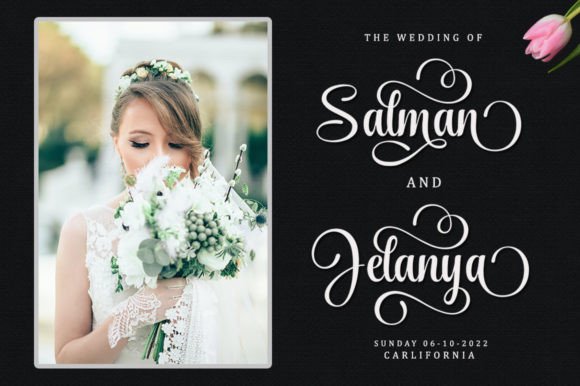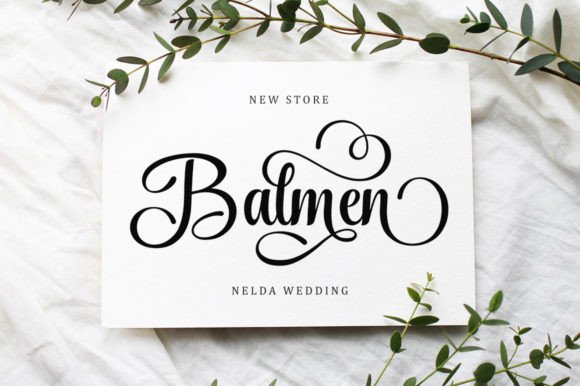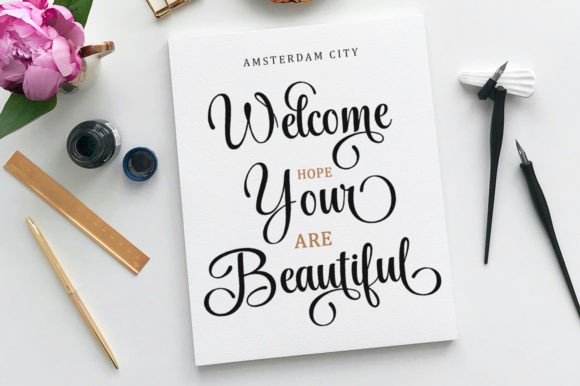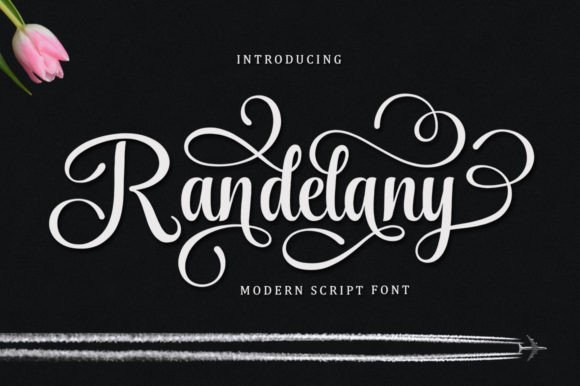
Introduction to Randelany Font
Randelany is a modern and elegant script font.
👤 Author Kartiny Type
Not too thin and not too thick, balanced and varied, this font was designed to enhance the beauty of your projects .